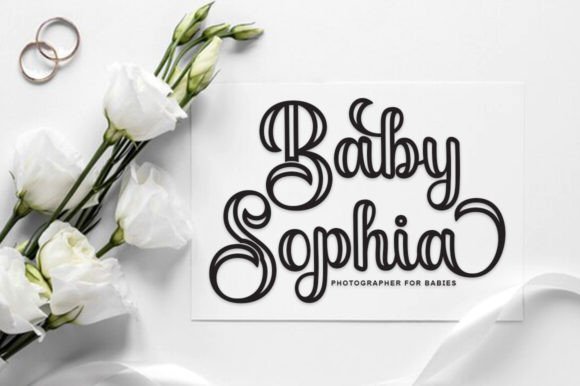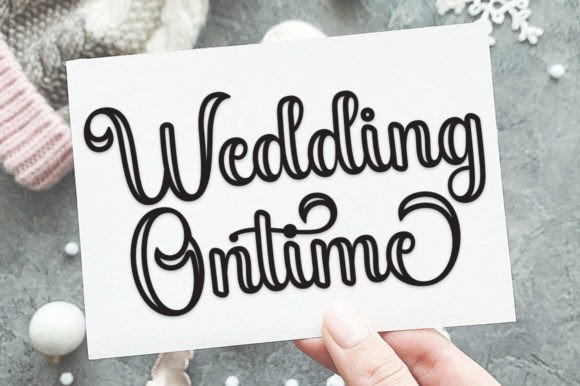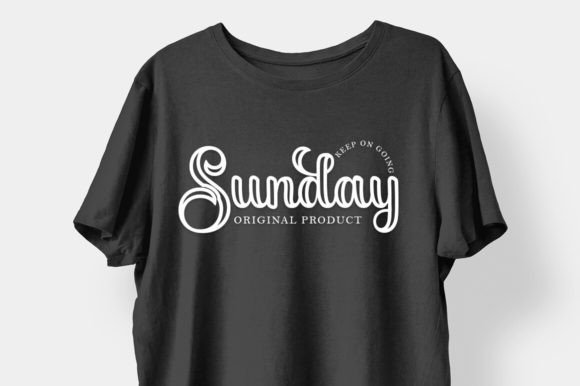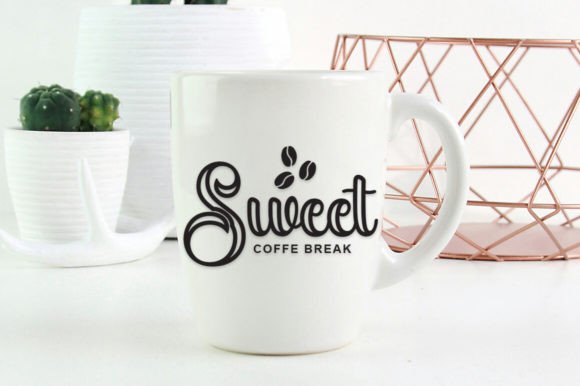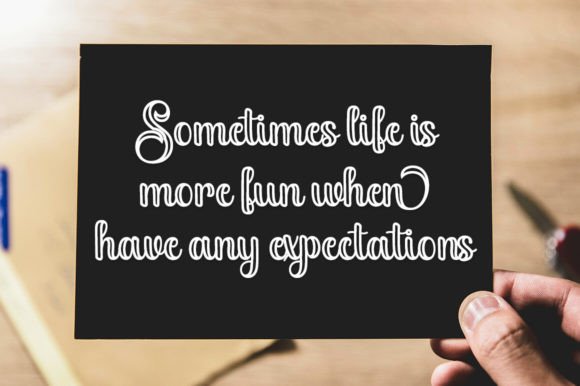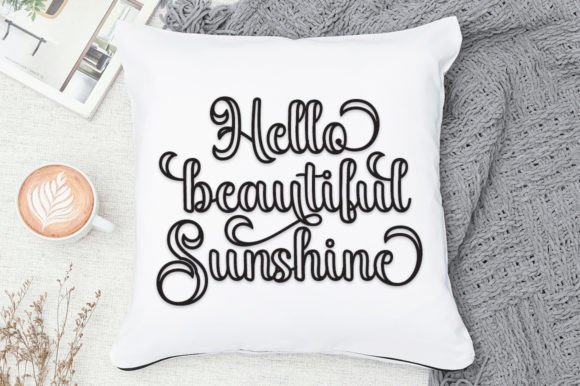
The Elegance of Black Sample Outline Font: A Designer’s New Best Friend
I’ll never forget the time I was working on a wedding invitation project, and my client asked for a font that exuded elegance and sophistication. I scoured the internet, tried out countless fonts, but nothing seemed quite right. That was until I stumbled upon Black Sample Outline Font. ✨ This stunning script font has since become a staple in my design toolkit, and I’m excited to share its charm with you.
- ✅ Elegant and Charming: Black Sample Outline Font is a stylish homage to classic calligraphy, making it perfect for high-end designs.
- ✅ Versatile: This font can elevate any design project, whether it’s branding, titles, wedding designs, invitations, signs, logos, labels, or more!
- ✅ Easy to Read: Despite its ornate design, Black Sample Outline Font remains surprisingly legible, even at smaller sizes.
While Black Sample Outline Font is an excellent choice, there are a few things to keep in mind: ⚠️
- 🤔 Limited Use in Body Text: Due to its ornate design, Black Sample Outline Font may not be the best choice for lengthy body text. Stick to headings, titles, and short paragraphs for maximum impact.
- 🤔 Requires Attention to Kerning: As with any script font, kerning can be a bit tricky. Take the time to adjust letter spacing for optimal results.
Black Sample Outline Font was inspired by the art of traditional calligraphy. Its designer sought to create a font that would evoke the elegance and sophistication of handwritten calligraphy, while still being legible and versatile. The result is a stunning script font that adds a touch of luxury to any design project.
| Font Name | Black Sample Outline Font |
| Author | Diorde Studio |
| What is Black Sample Outline Font best suited for? | Black Sample Outline Font is perfect for high-end designs, such as wedding invitations, branding, titles, logos, and more. |
| Is Black Sample Outline Font difficult to read? | No, despite its ornate design, Black Sample Outline Font remains surprisingly legible, even at smaller sizes. |
| Can I use Black Sample Outline Font for body text? | While possible, it’s recommended to use Black Sample Outline Font for headings, titles, and short paragraphs for maximum impact. |
| Does Black Sample Outline Font support OpenType features? | Yes, Black Sample Outline Font supports OpenType features, including stylistic alternates and glyphs. |